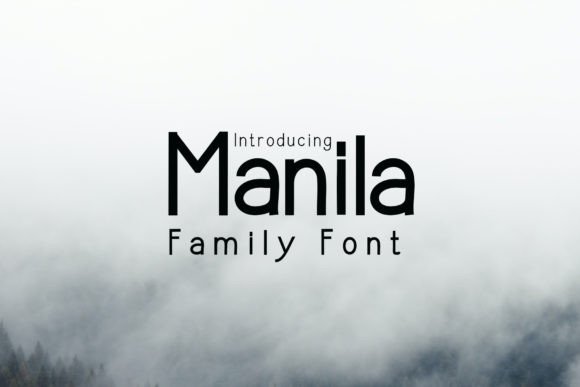
Introducing Manila Font - The Ultimate Sans Serif Font for Modern Logos
Manila Font is a groundbreaking sans serif typeface that exudes sophistication and professionalism, becoming the ultimate choice for creating captivating logos. Its meticulously crafted characters embody a clean and crisp aesthetic, ensuring your designs stand out with undeniable impact.
Unleash Your Creativity with Limitless Versatility
The beauty of Manila Font lies in its remarkable adaptability, effortlessly catering to a diverse array of design endeavors. From sleek logos to compelling branding materials, this font flawlessly adapts to your creative vision. Experience the freedom to transform your ideas into reality, knowing that Manila Font will elevate them to new heights of visual appeal.
Craft Logos with Substance and Impact
Manila Font is the secret weapon for creating logos that resonate with your audience, leaving a lasting impression that cements your brand's identity. Its modern and minimalist appeal lends itself seamlessly to logo designs, allowing you to convey your brand's values with clarity and power.
Embrace the Power of Simplicity
Manila Font's minimalist design philosophy empowers you to craft logos that communicate your brand's message with unwavering focus and impact. Its clean lines and unpretentious character ensure that your logos will captivate and inspire, leaving a lasting legacy of visual excellence.